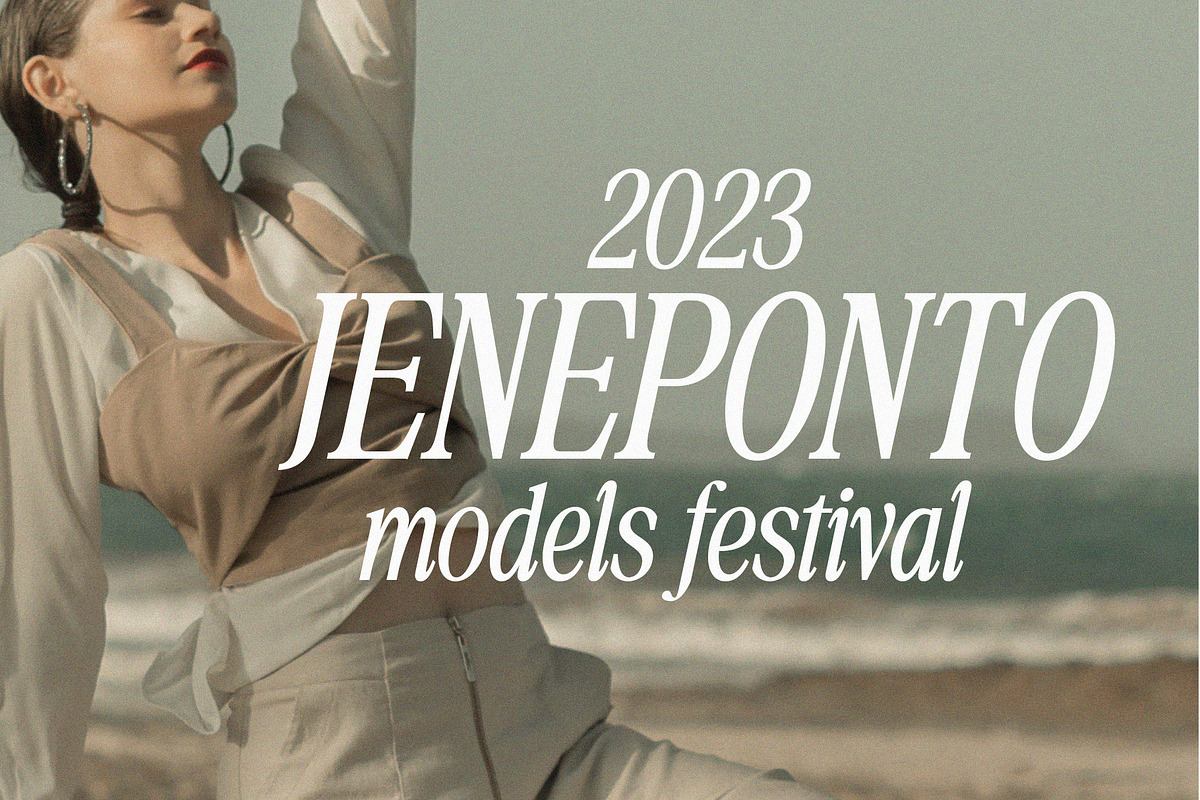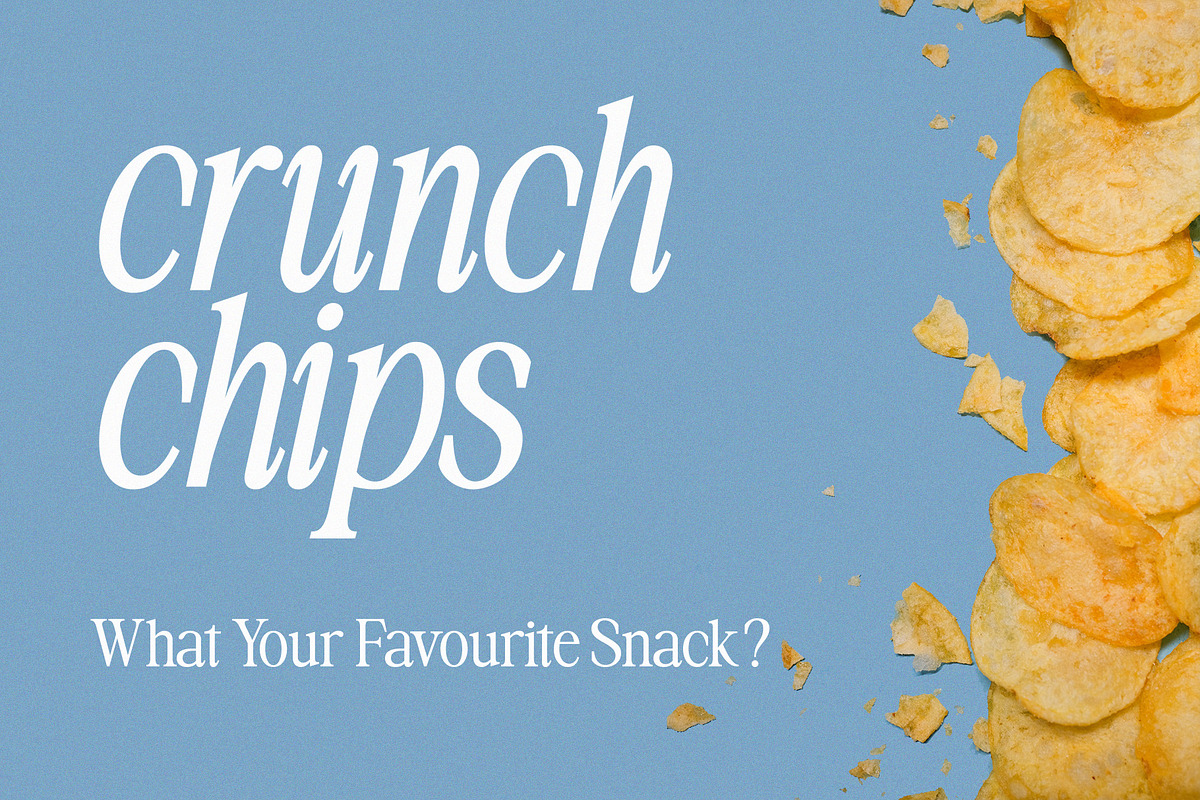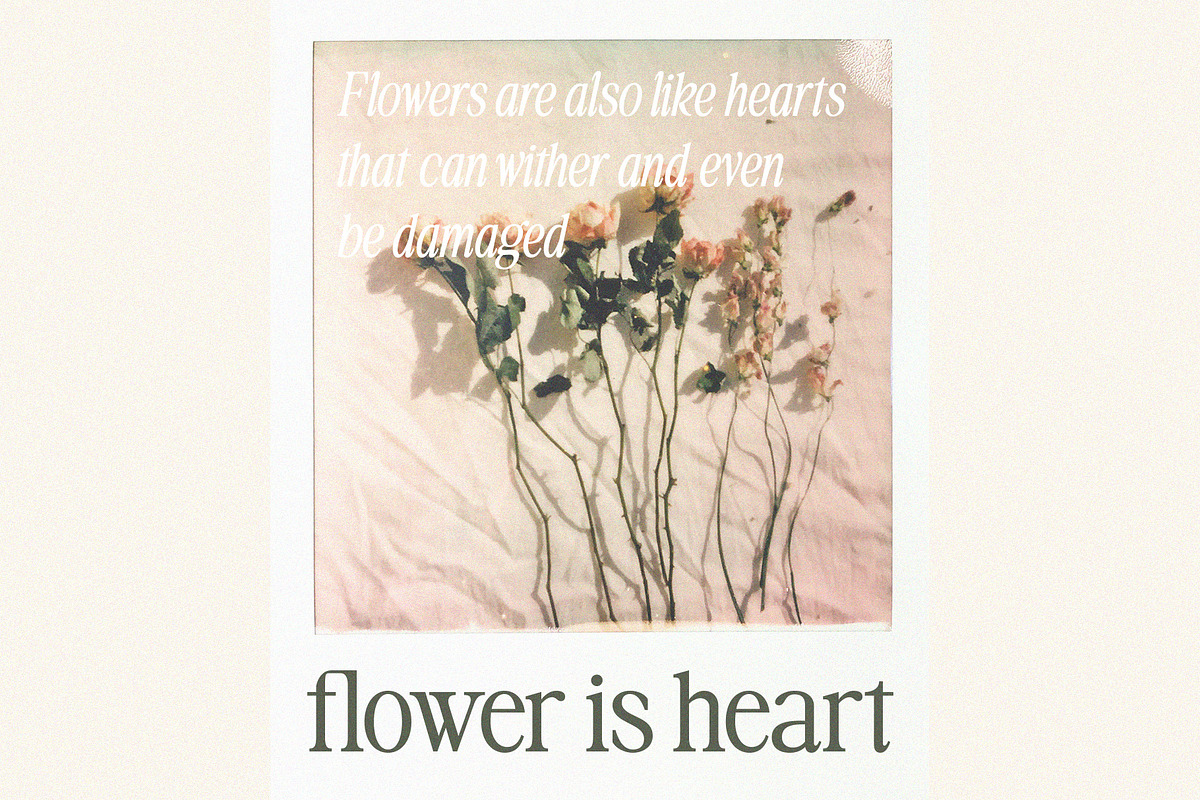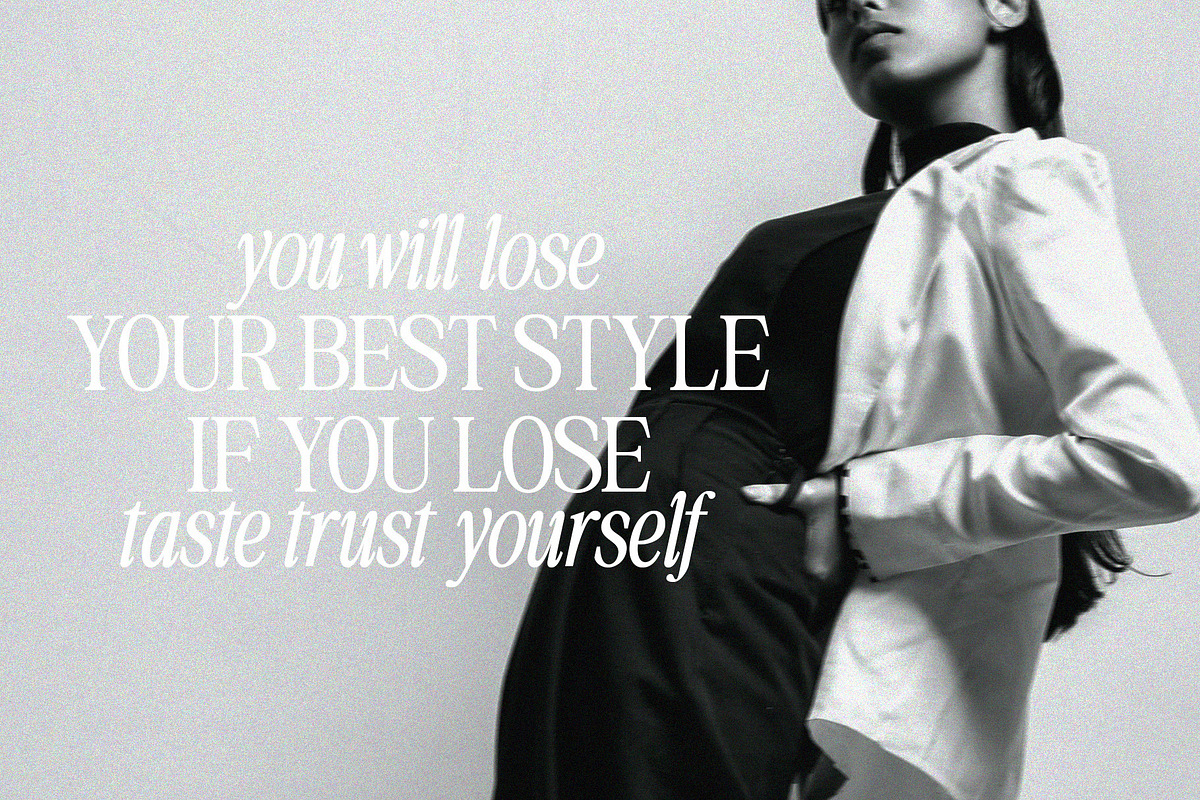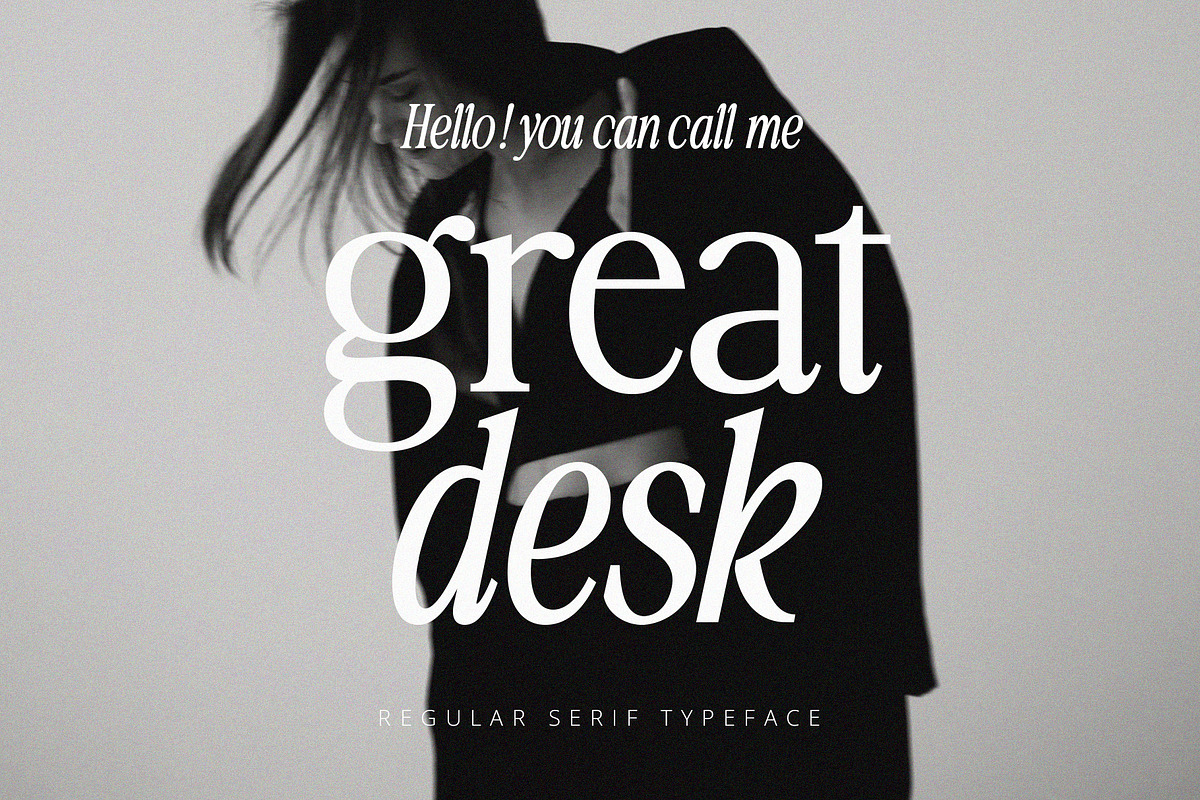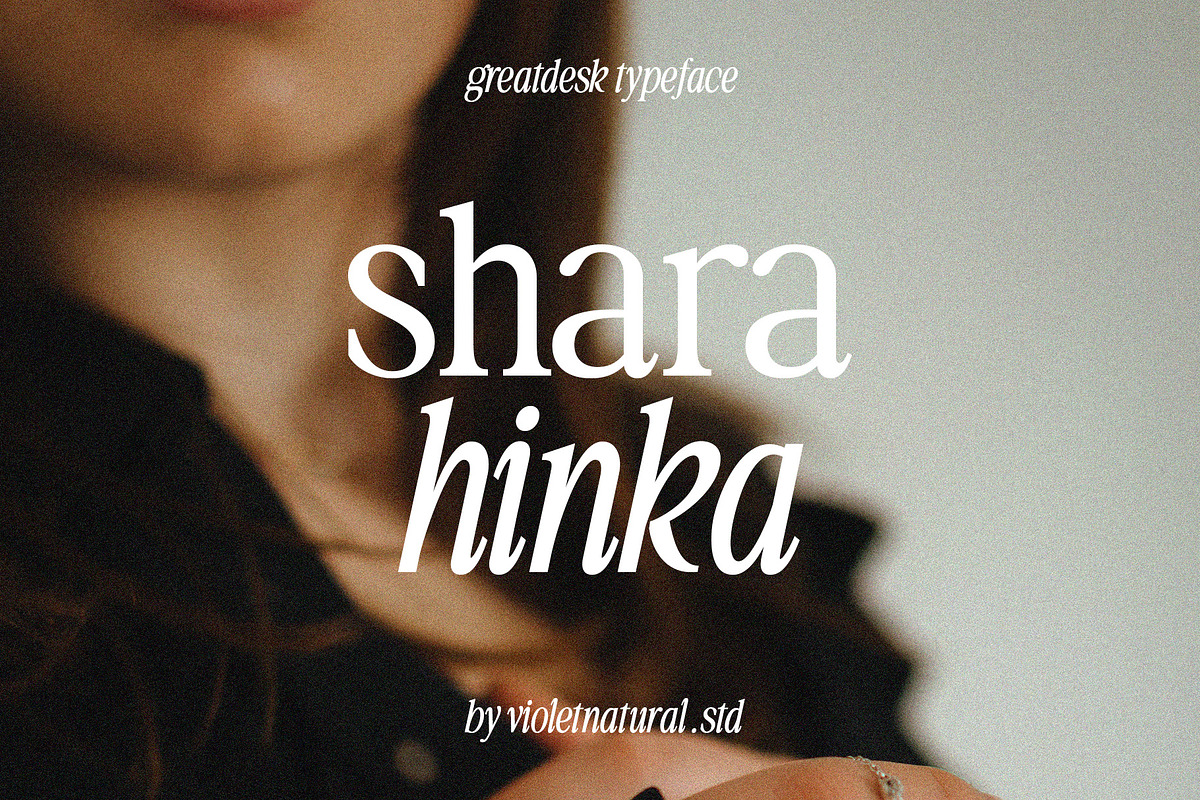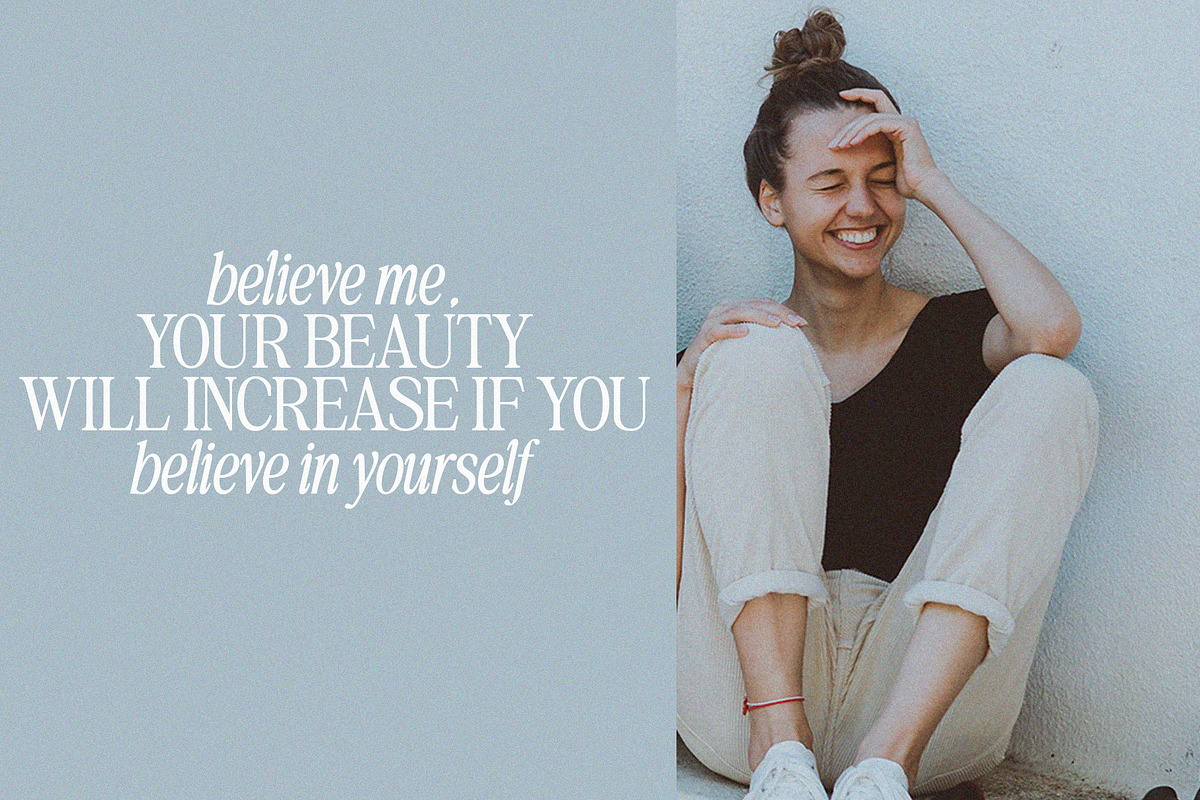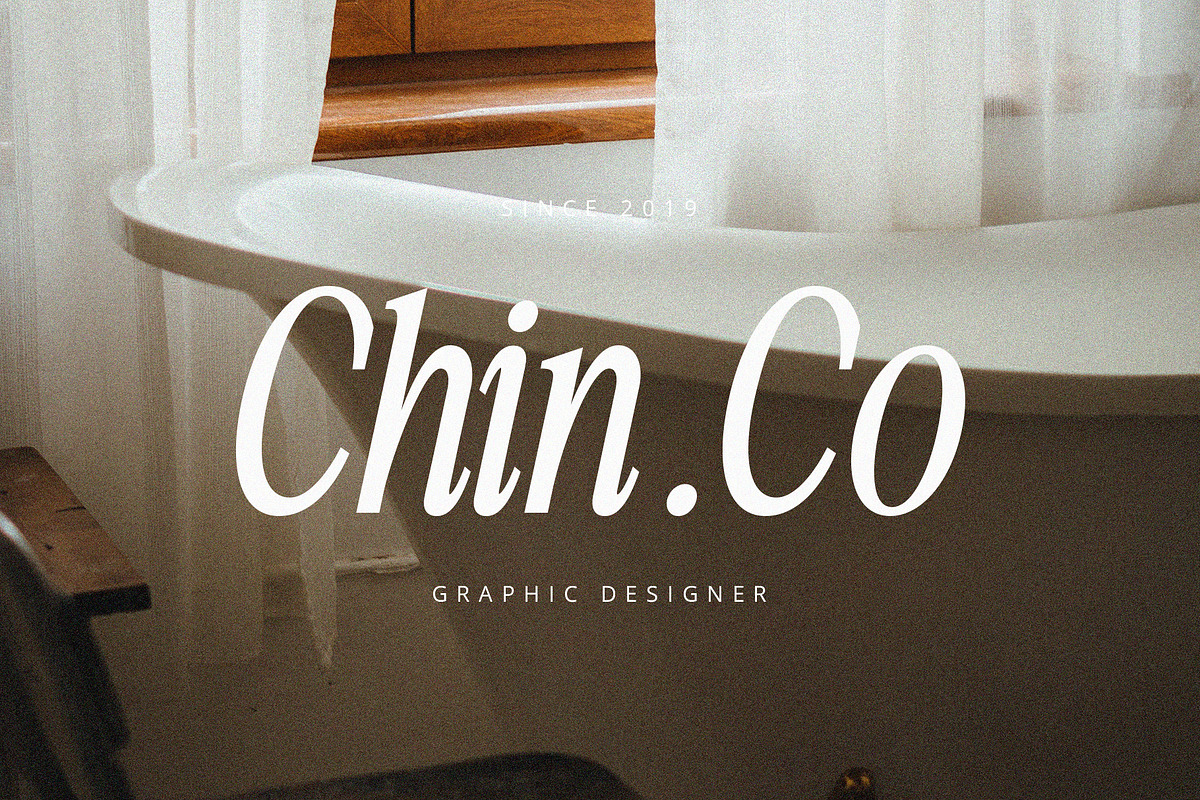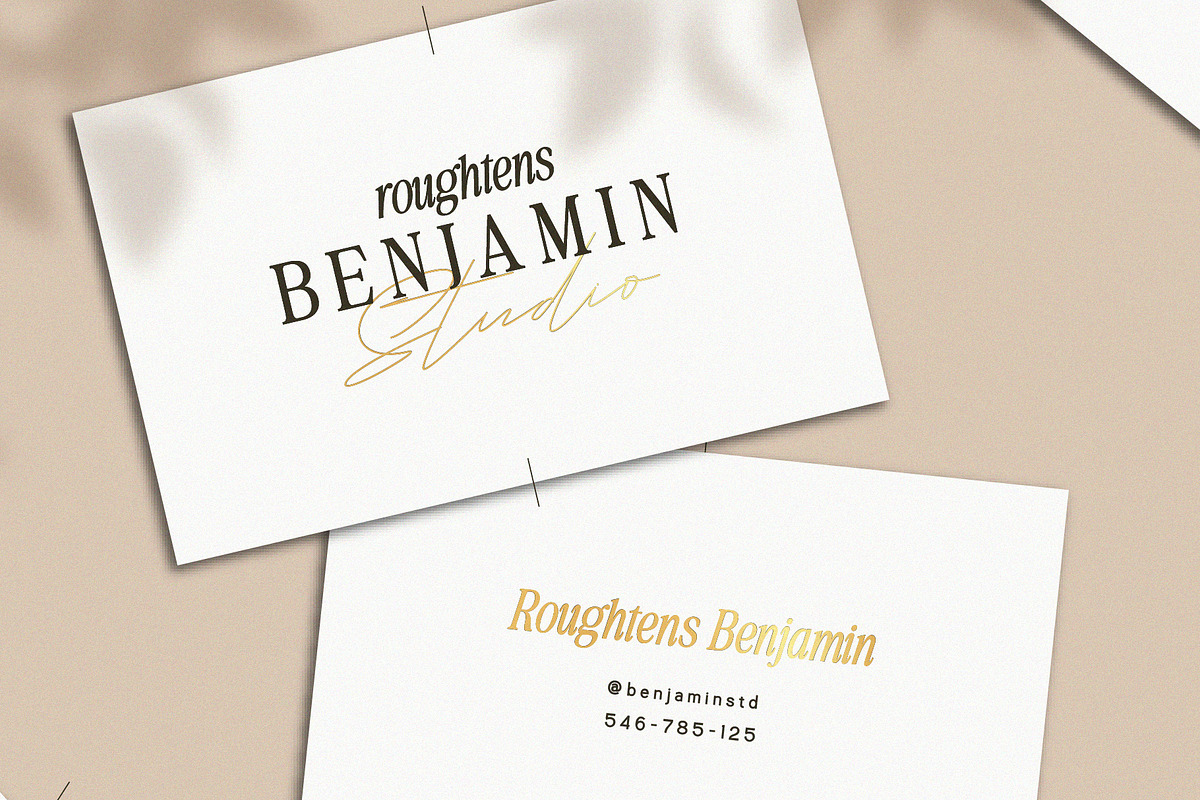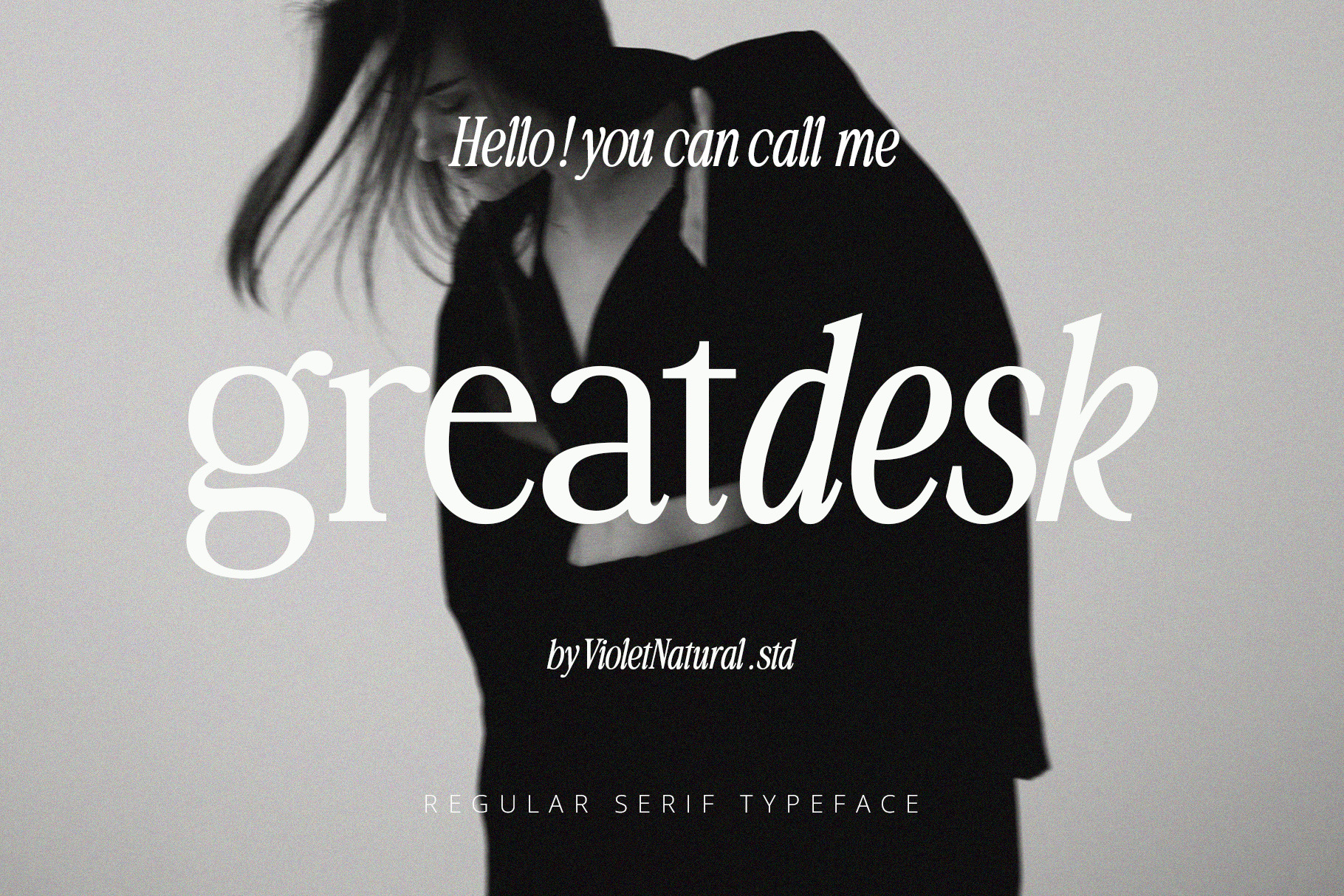
Greatdesk Serif Typeface
helo this is my font with the name greatdesk which has a classic, clean and elegant style and italic style in the letters. This font is suitable for application in various media, be it print or digital.